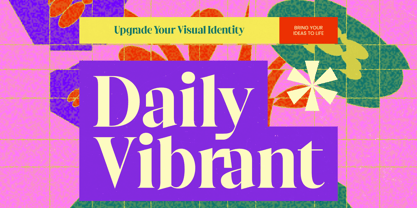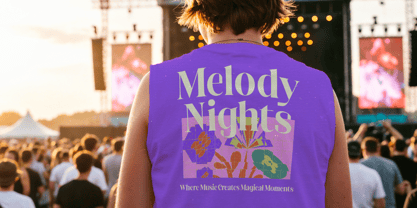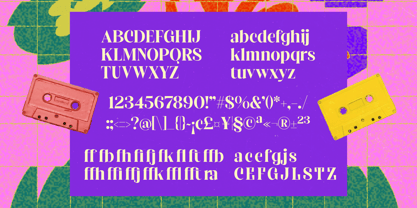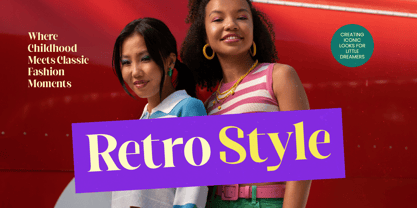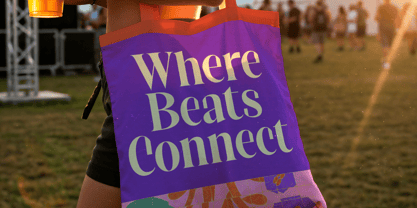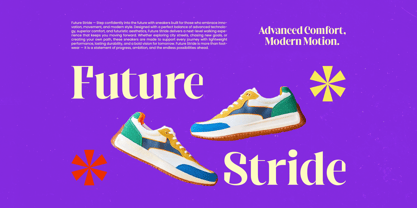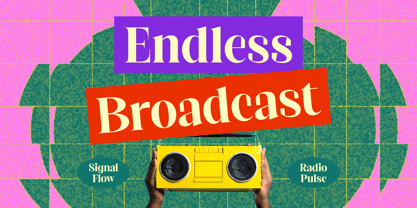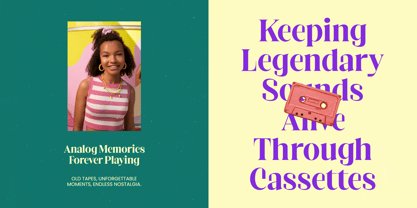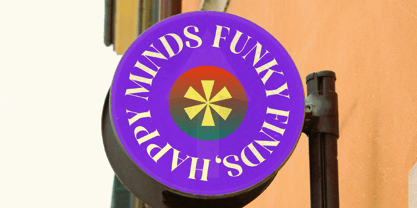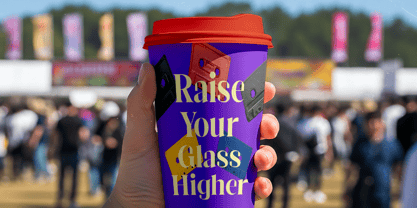
Daily Vibrant
by Timelesstype Studio
The Daily Vibrant Font Family was designed by Heru Utama Putra and published by Timelesstype Studio. Daily Vibrant contains 2 styles and family package options. More about this family
Daily Vibrant - Bold Tall Serif. This typeface embodies a modern-classic aesthetic, characterized by its high-contrast strokes and elongated vertical proportions. Designed to capture attention instantly, Daily Vibrant - Bold Tall Serif blends timeless elegance with a bold, contemporary edge that makes every character stand out with unparalleled clarity and sophisticated flair.